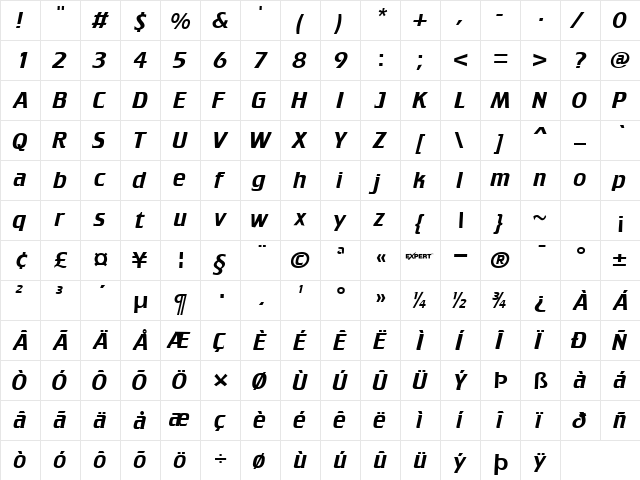
Trakker Regular
Design Context for Trakker Typeface
Trakker is a composed and adaptable typeface that performs quietly and consistently across a wide range of design contexts.